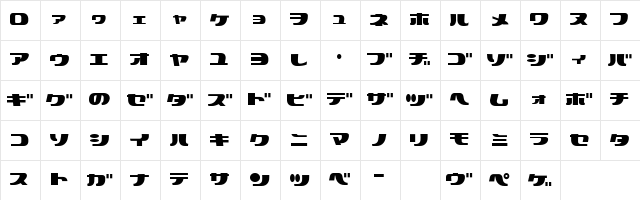
happy frame
Style: frame
Design Context for happy
happy is a composed and adaptable typeface that performs quietly and consistently across a wide range of design contexts.